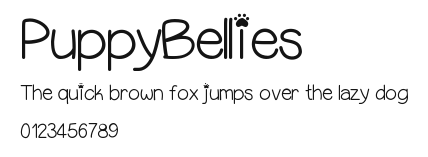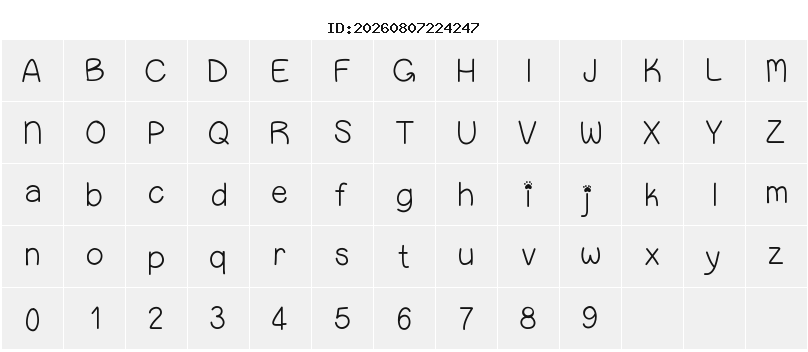
PuppyBellies Preview
About PuppyBellies.ttf
PuppyBellies.ttf is a modern, elegant sans-serif font designed for ultimate readability and visual harmony. Perfect for branding, headlines, web design, and print materials.